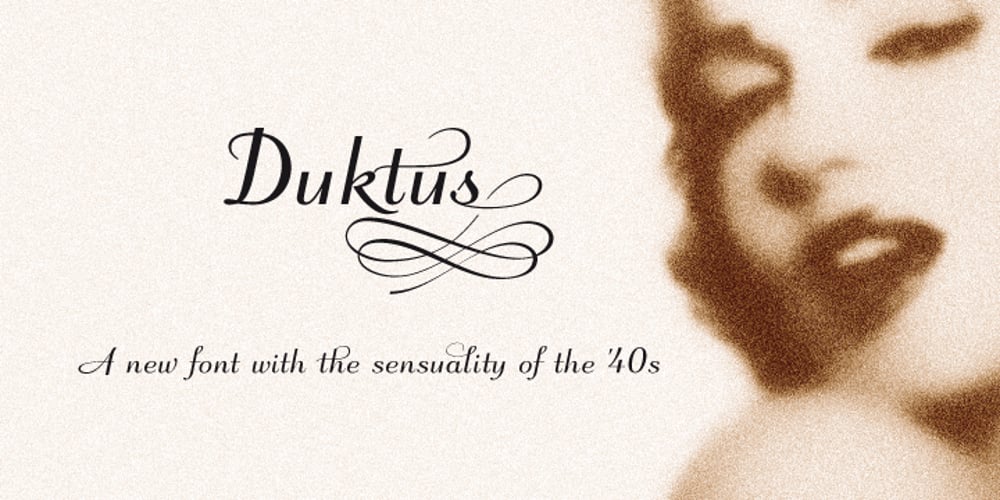
Duktus
Duktus font
Duktus Font Family was designed by Olcar Alcaide and published by Eurotypo. Duktus contains 4 styles and family package options. Duktus is a script typeface with a 1940’s flavour. It is a delicate script with letters not quite connected, having large, flourished capitals and small lowercase with long ascenders and descenders. It has a crisp, precise appearance, but is not rigidly formal. The design was inspired by the typeface Donatello by Wagner & Schmidt in 1935 and published by Società Nebiolo, Torino. Some other Influences: 1927 Trobadour by Wagner & Schmidt 1927 Liberty Script by Willard T. Sniffin 1933 Trafton Script by Howard Allen Trafton, 1937 Coronet designed by Robert Hunter Middleton Duktus fonts come with plenty of alternates small caps, old style numerals, ornaments and swashes. They include also CE language support.